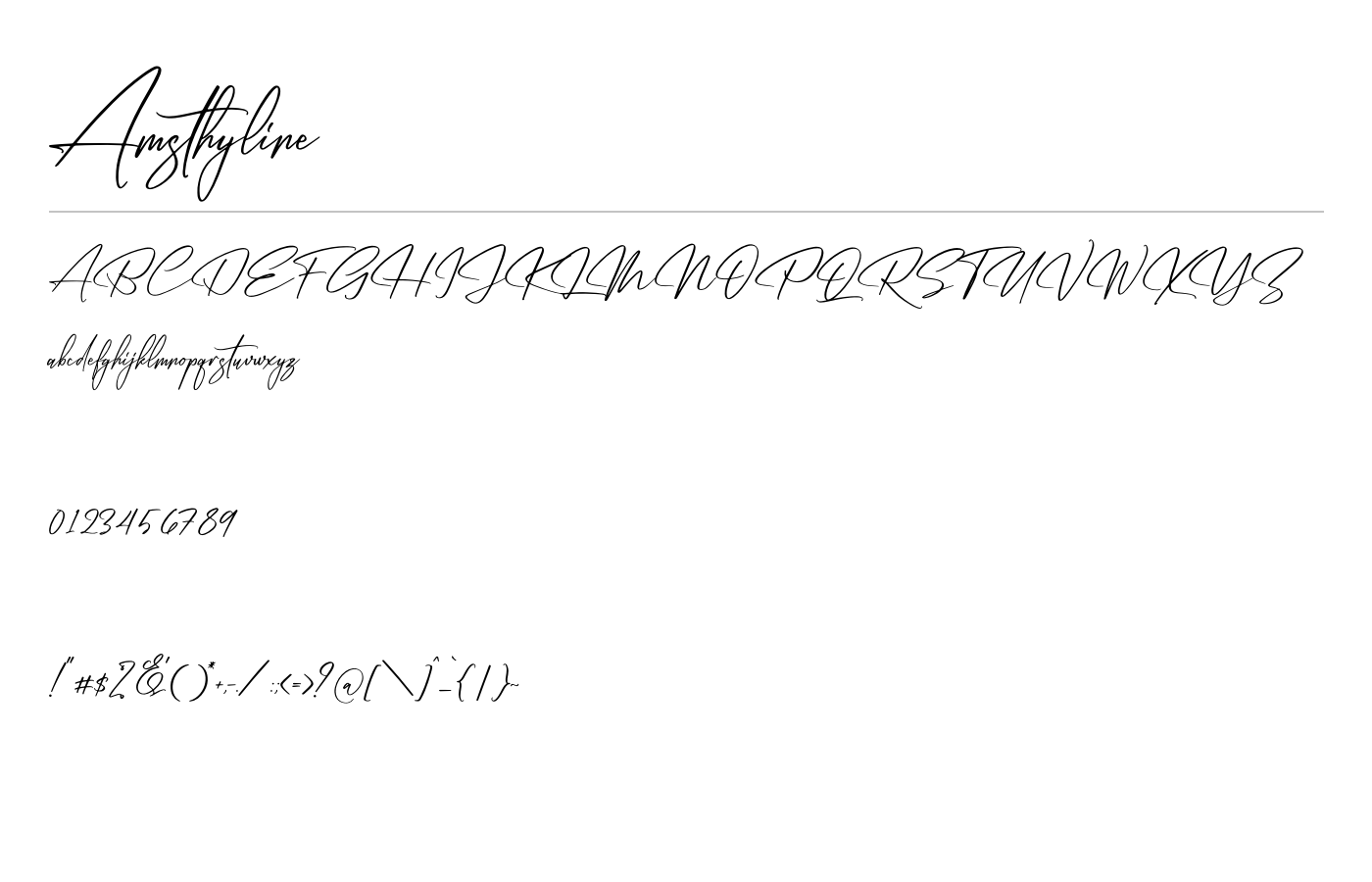
Amsthyline is an elegant, delicate script font with a modern and handwritten feel. Its thin, flowing strokes and high contrast give it a refined and graceful appearance, making it ideal for upscale branding, invitations, and feminine or artistic designs. This font works best in large sizes for headlines or logos where its stylish curves can shine.
Amsthyline Font
About Amsthyline Font
| Font family | Amsthyline Font |
| Designer | Nanang Jamaludin |